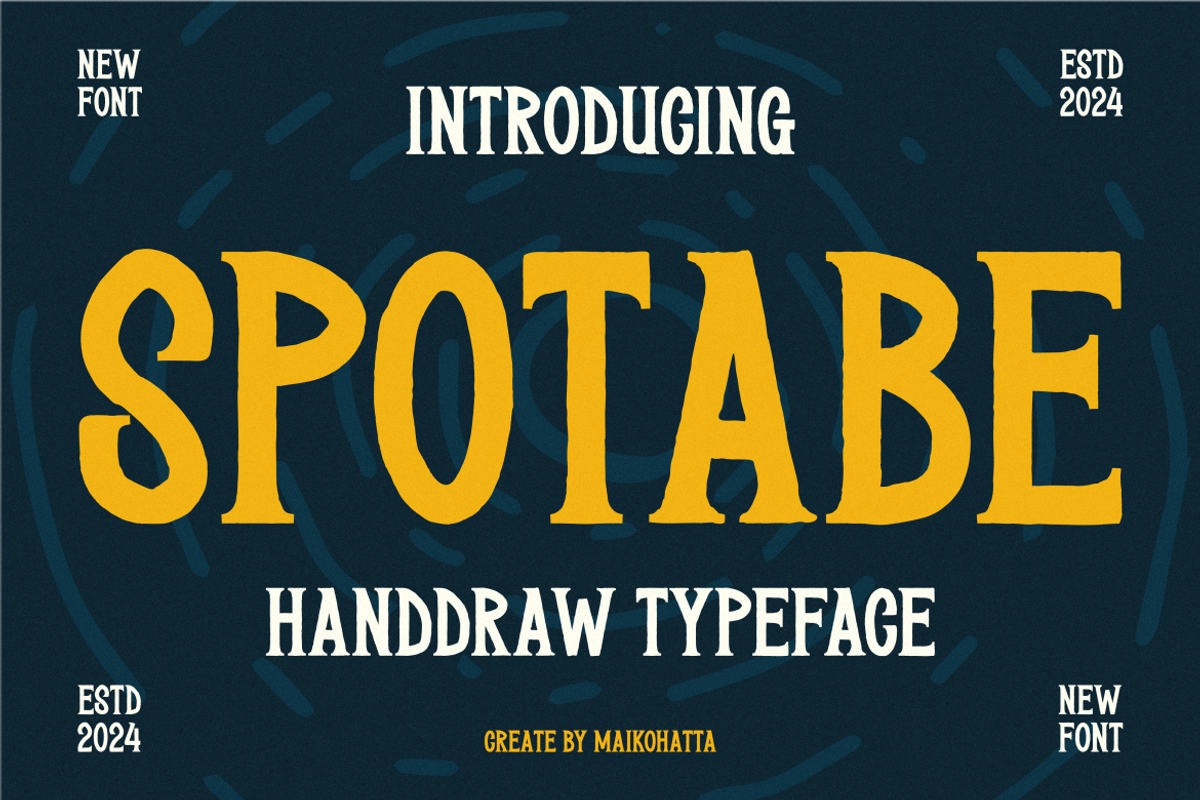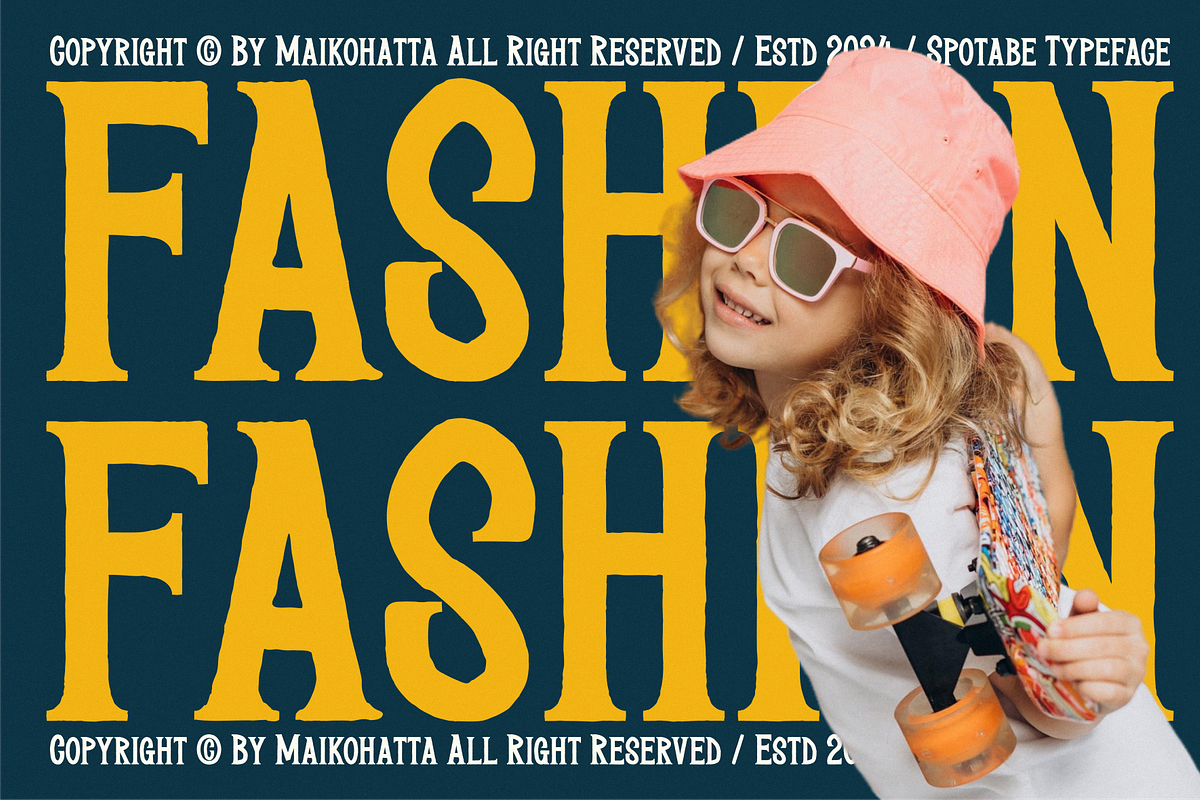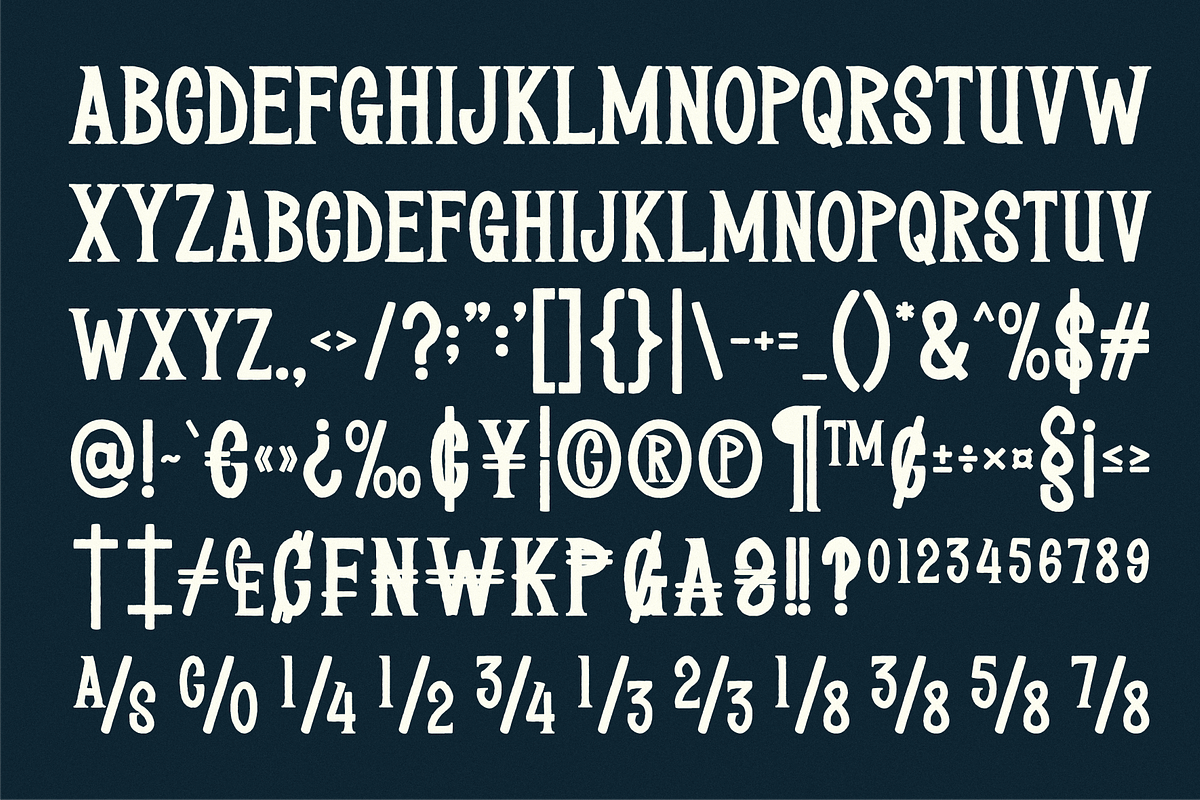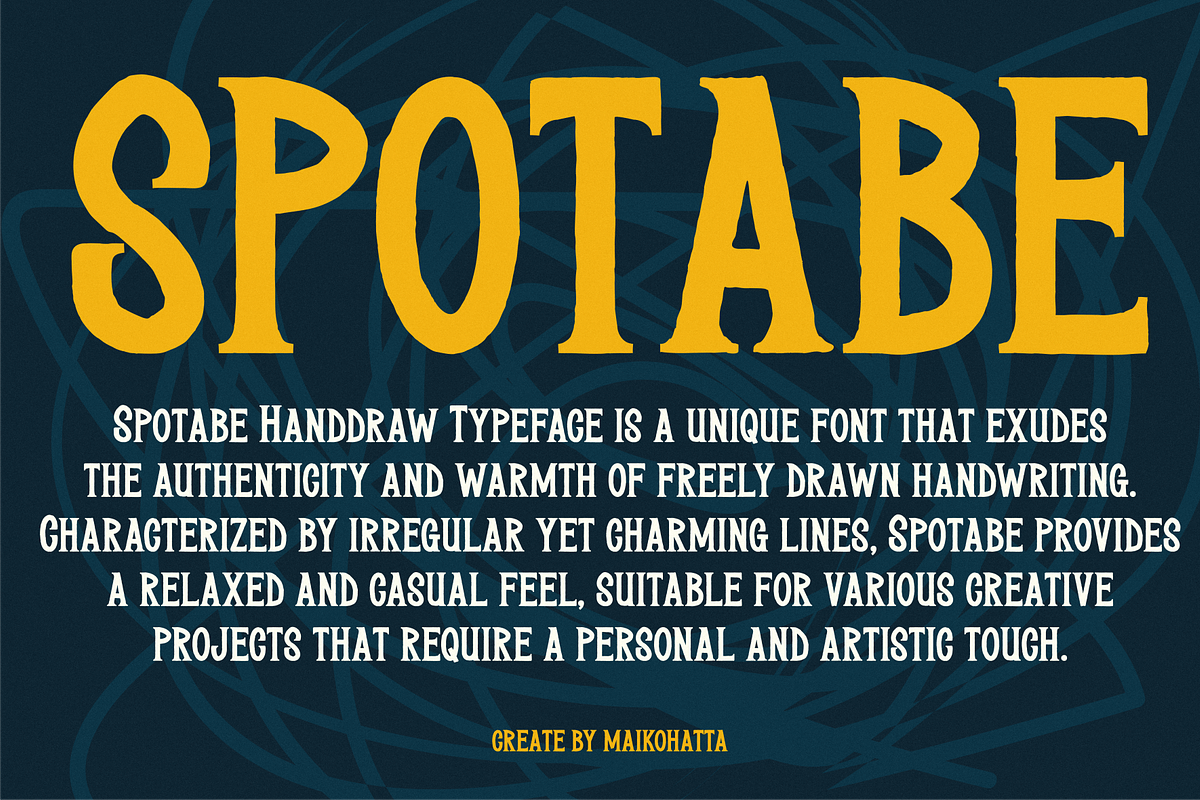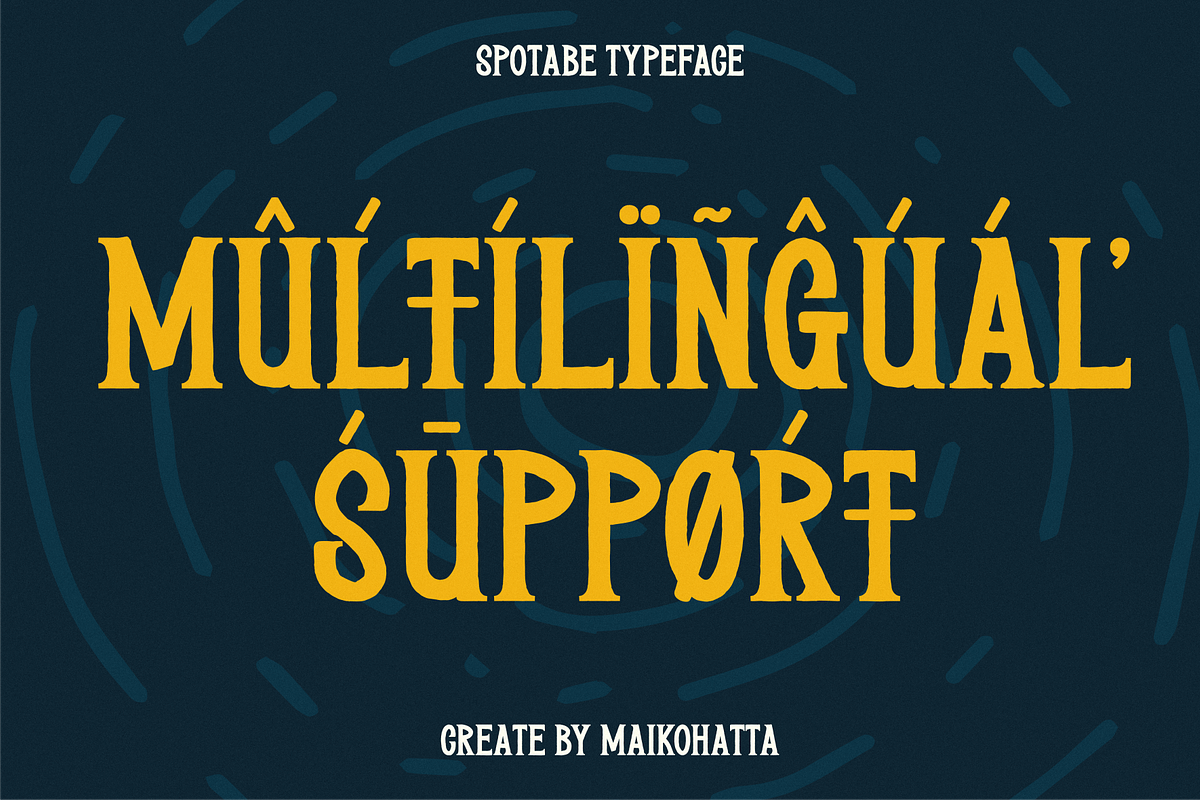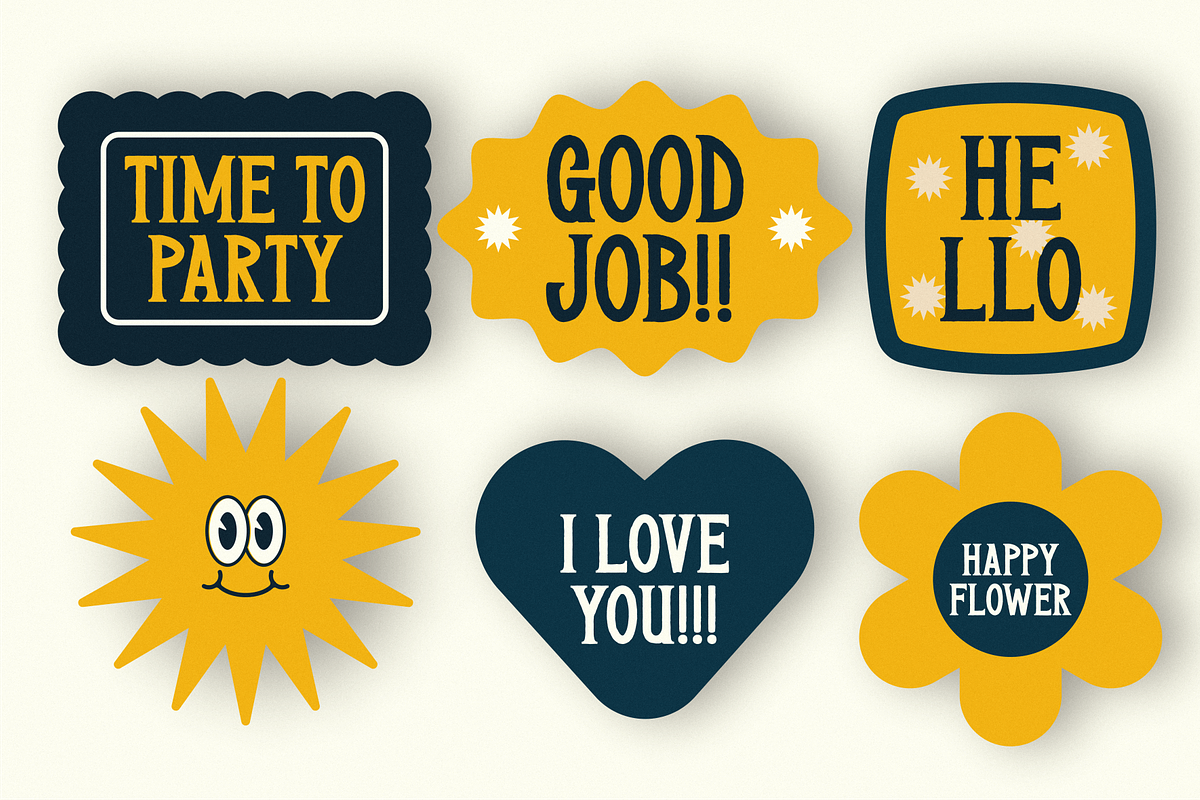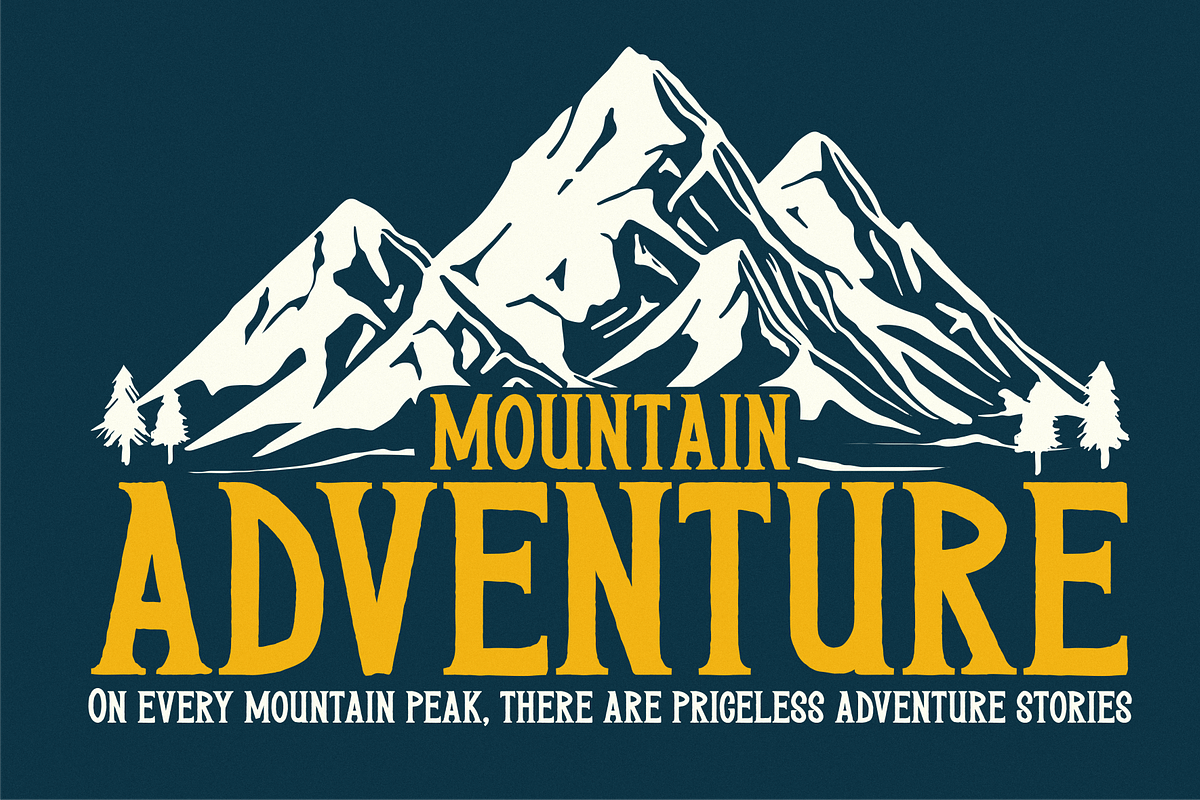
Spotabe - Handdraw Typeface
Introducing our new product Spotabe - Handdraw Typeface
This font is a typographic masterpiece that harmonizes elegance and sharpness. Every letter within this font is meticulously designed, with a keen focus on balanced proportions and impeccable alignment. This font is well-suited for a variety of contexts, such as print design, promotional materials, or magazine layouts.